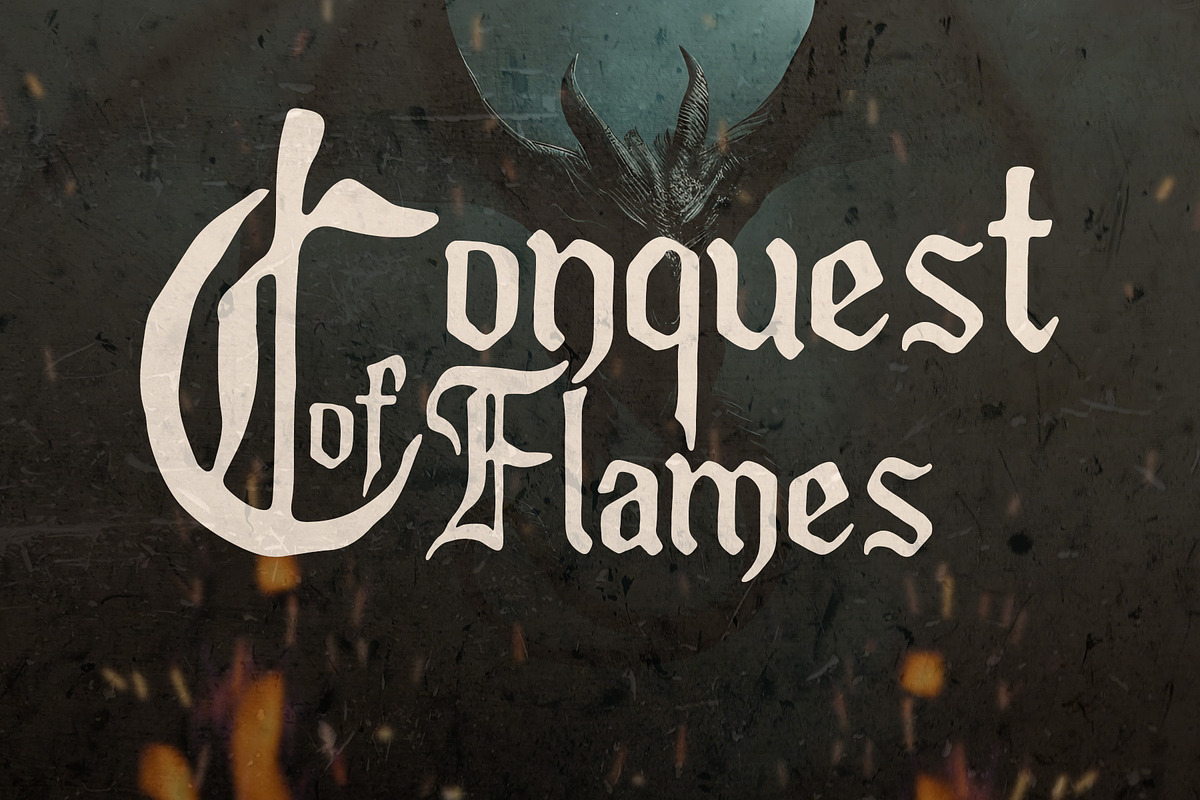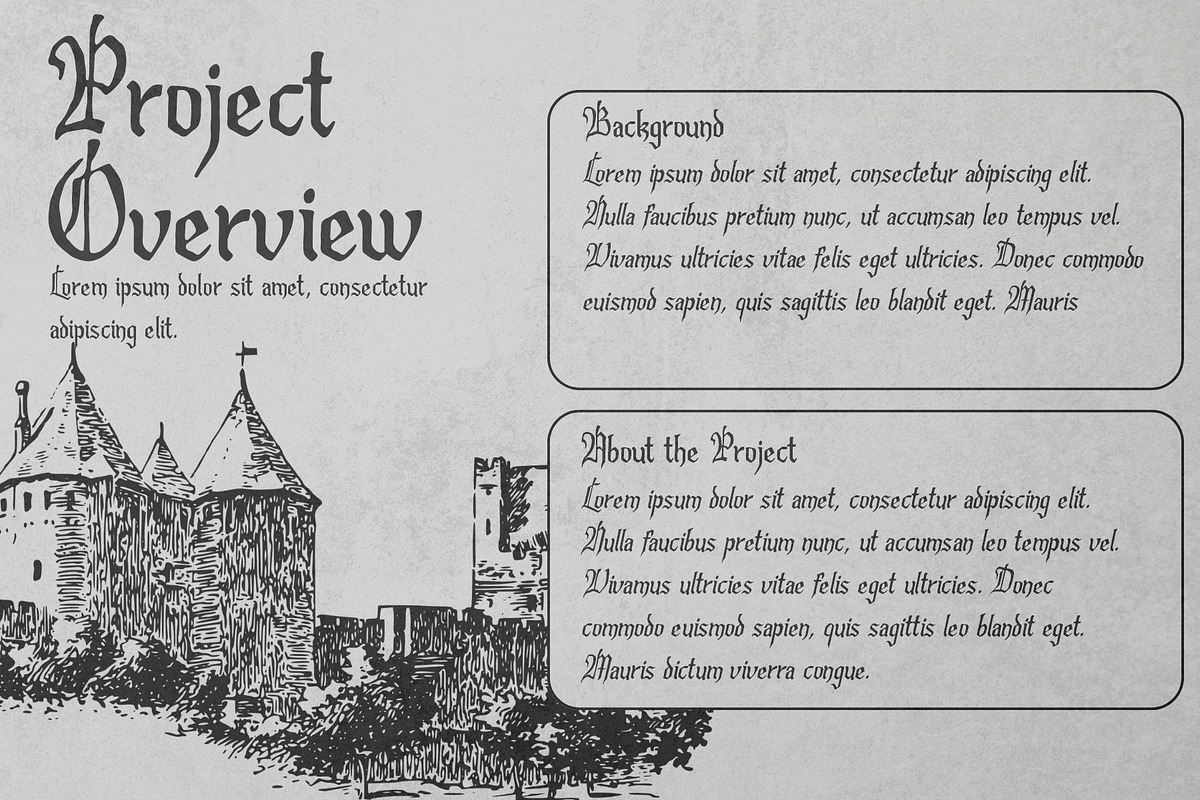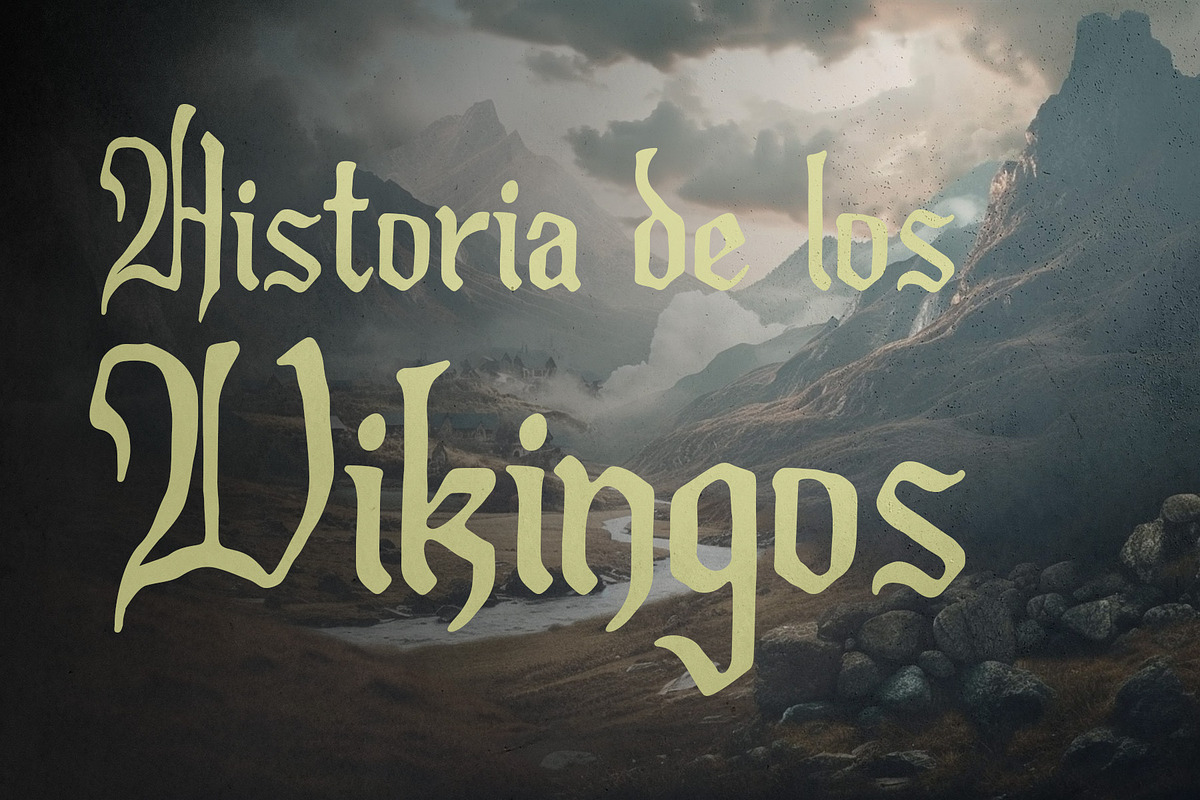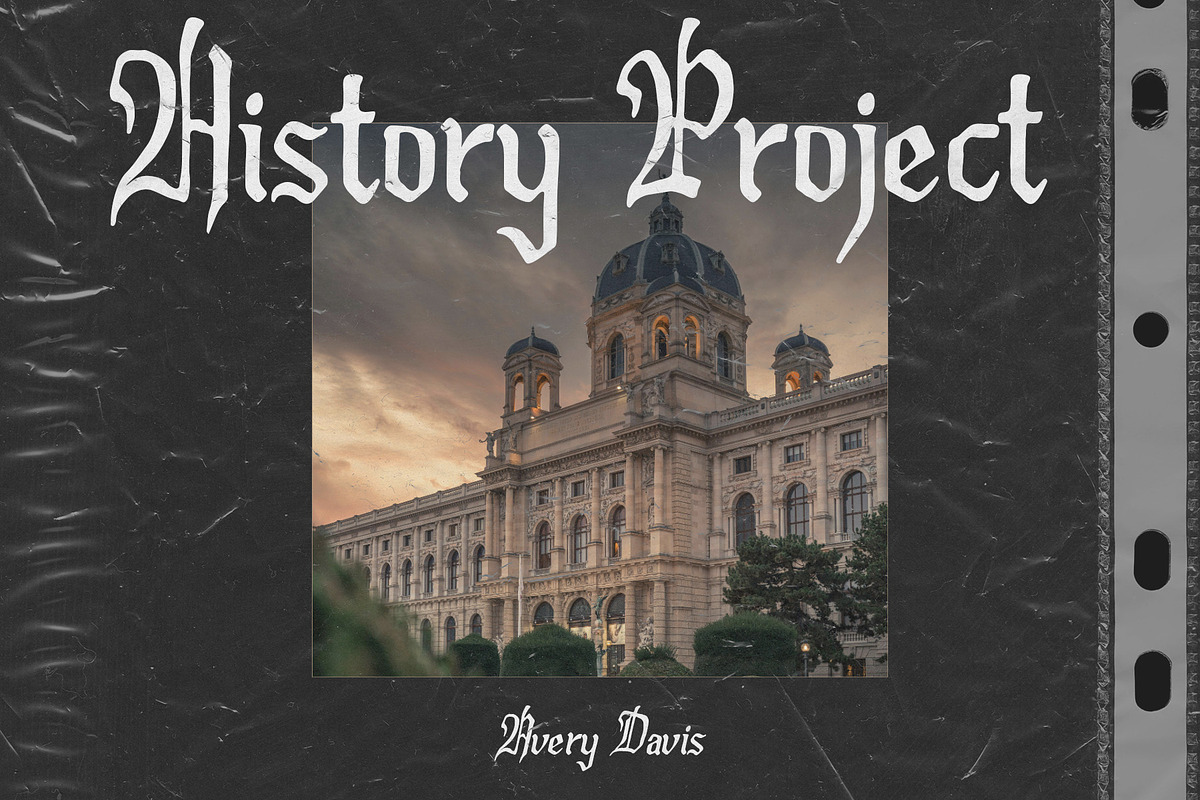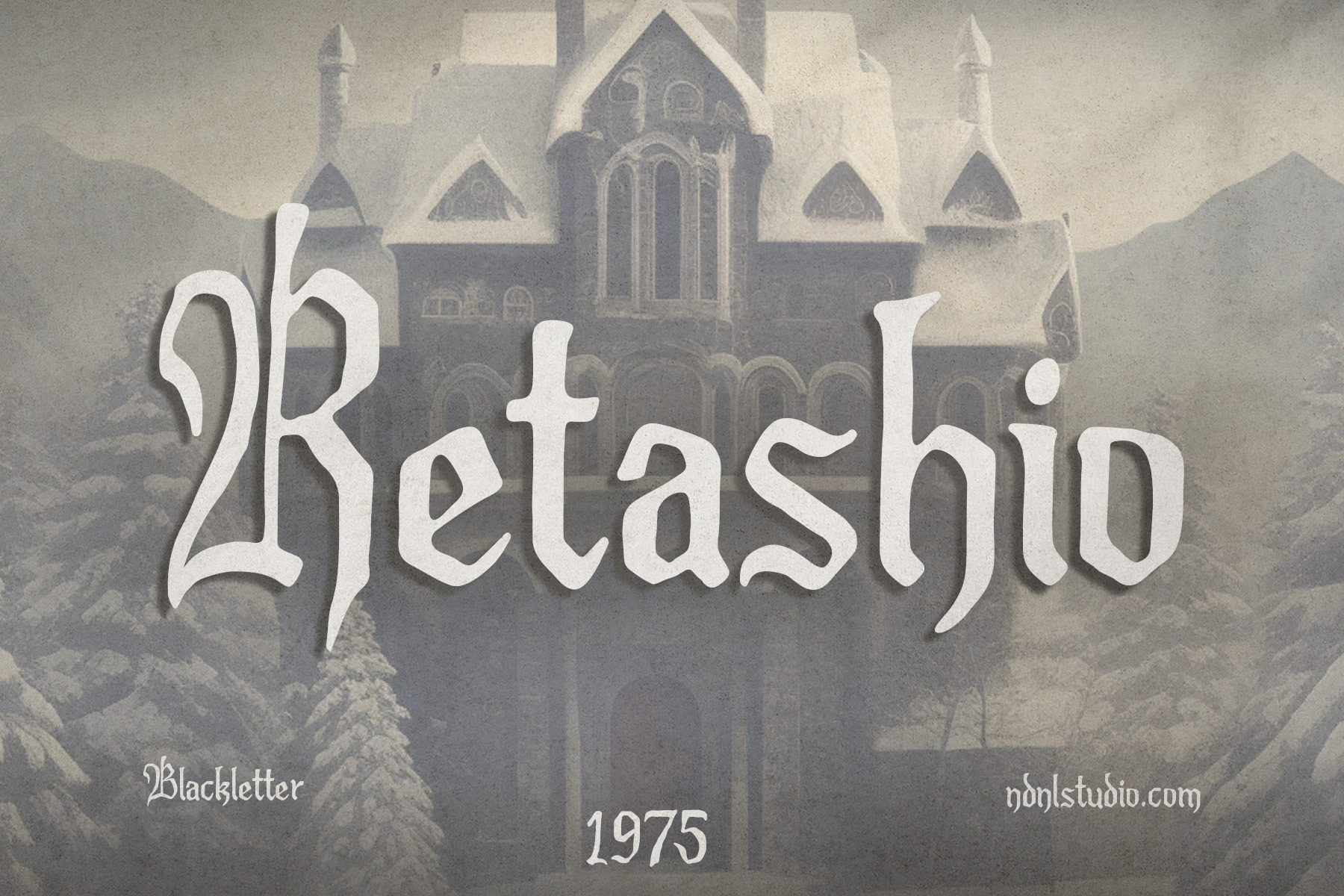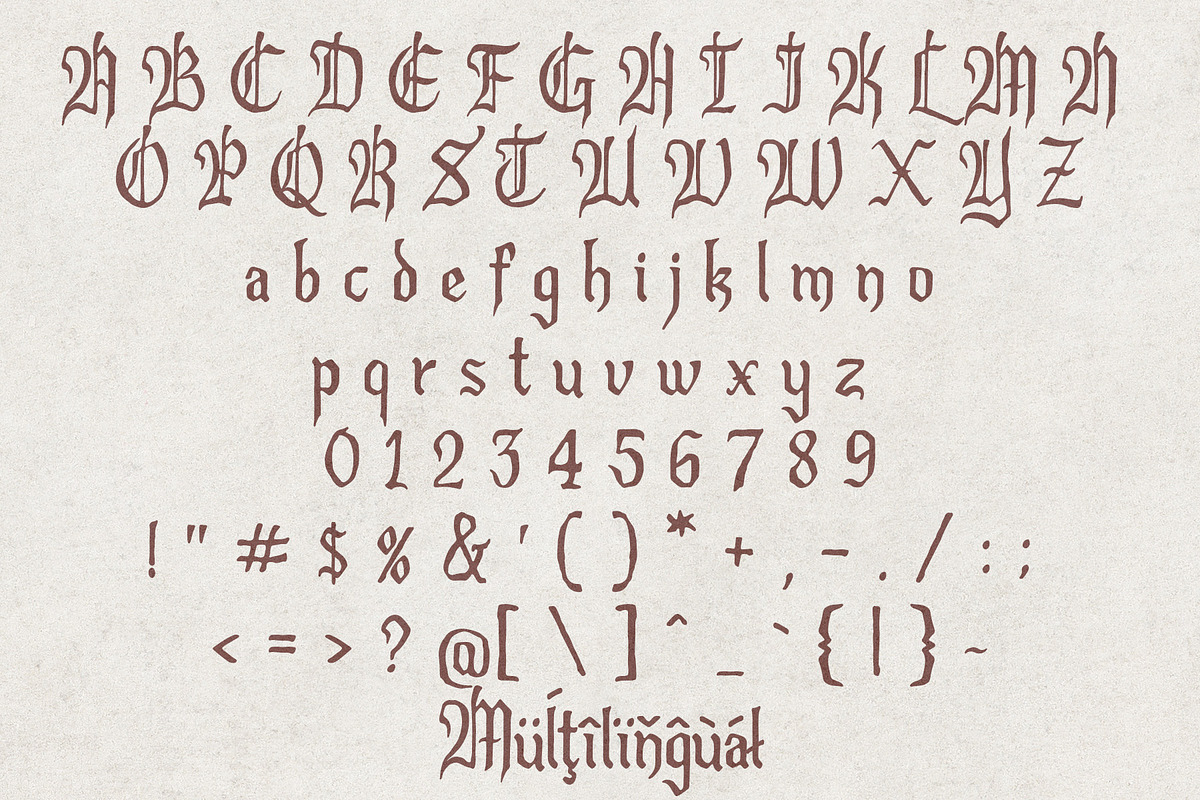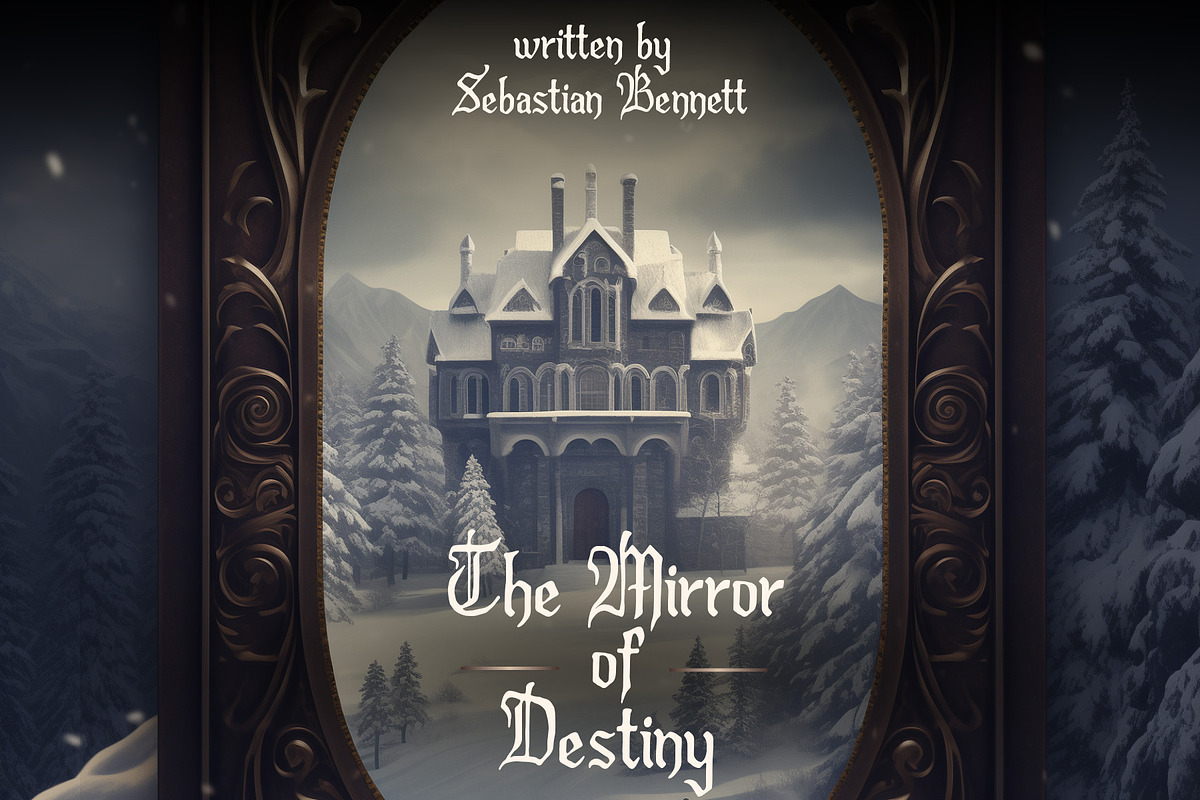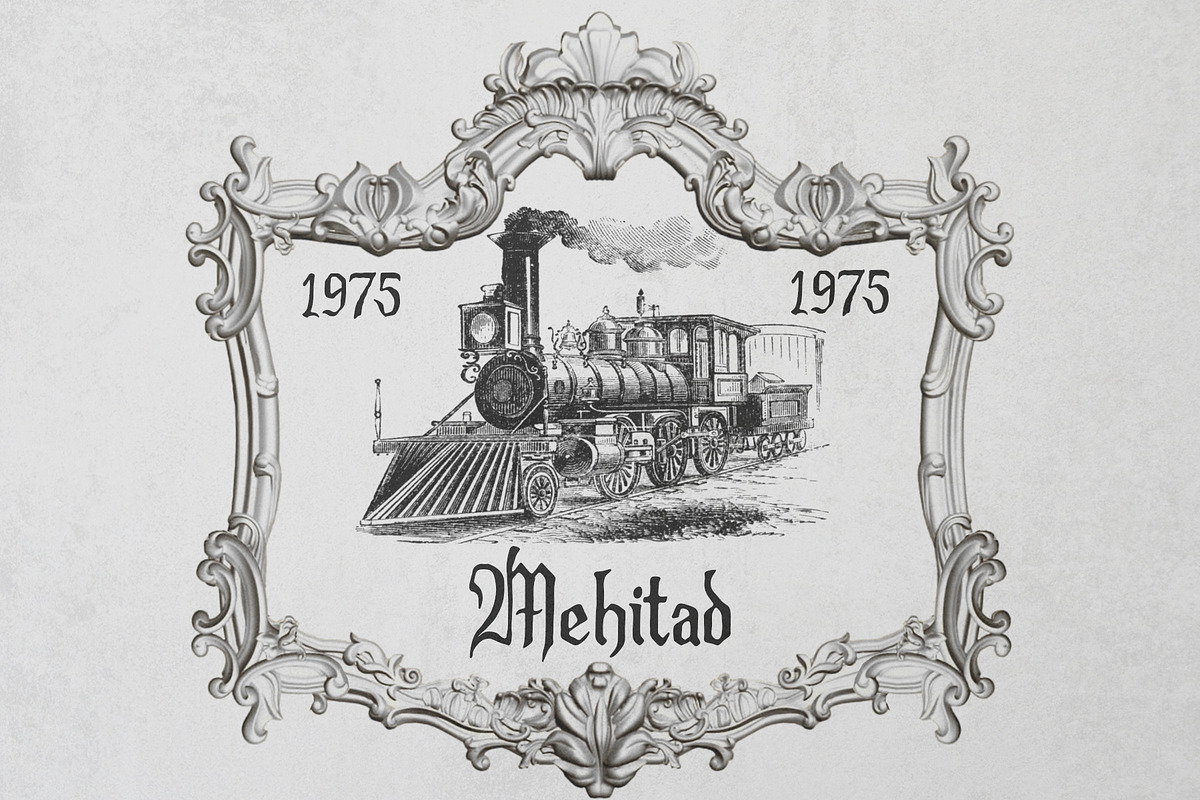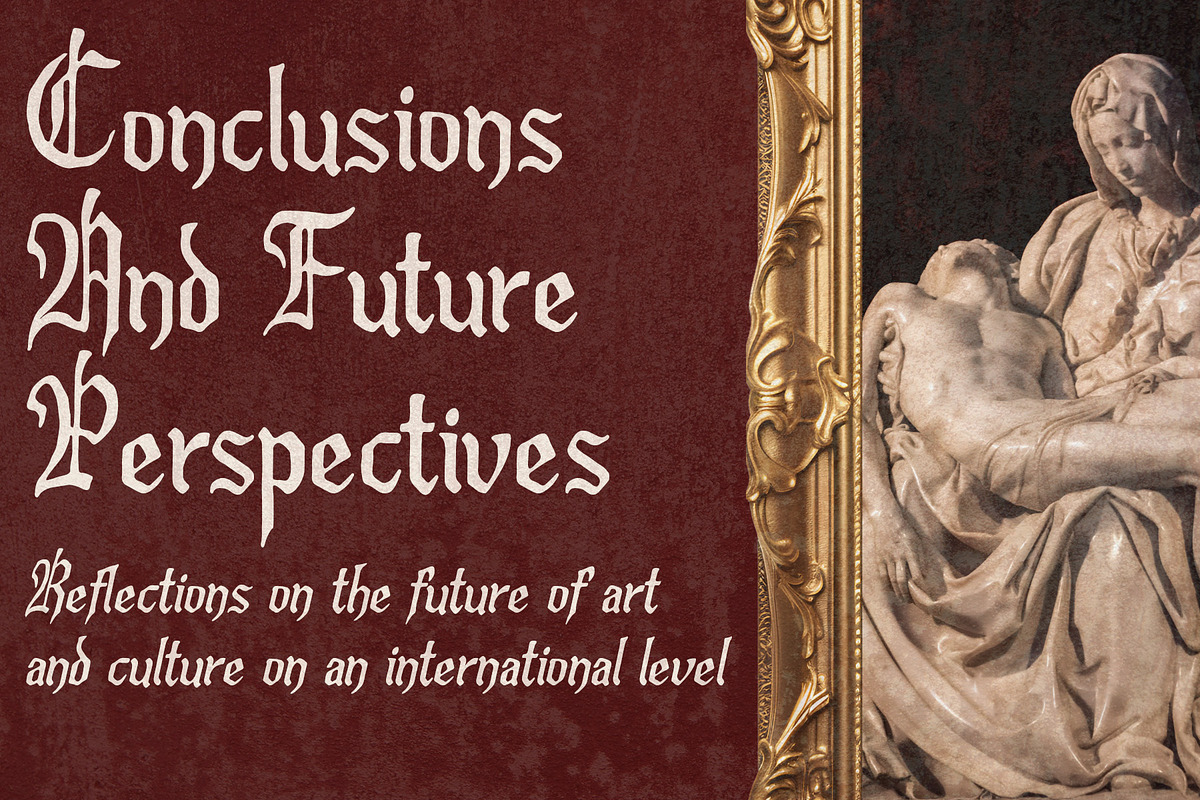
Retashio – Blackletter Font
Retashio is a classic Blackletter typeface infused with a modern emotional touch. Inspired by medieval manuscripts and Gothic architecture, it features sharp strokes and elegant curves that create a mysterious and majestic aesthetic.
This font is perfect for vintage-themed designs, book covers, artistic posters, or any project that aims to convey historical depth and strong visual character. Retashio is not just a typeface — it’s a journey back in time through art and expression.